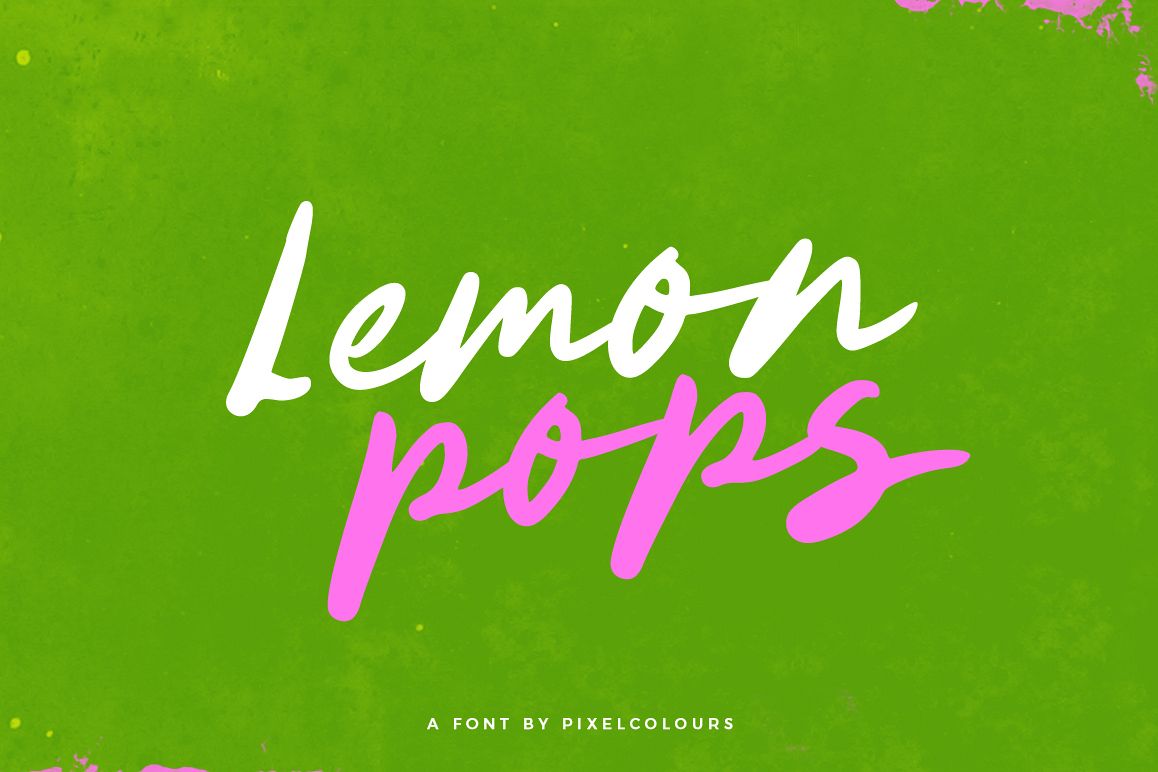
Lemon Pops Hand Drawn Script Font
Lemon Pops is a cool hand drawn font with an imperfect finish perfect for quotes, recipes, greeting cards, etc. to give a great fun touch.
• Uppercase and lowercase, numbers and puntuaction.